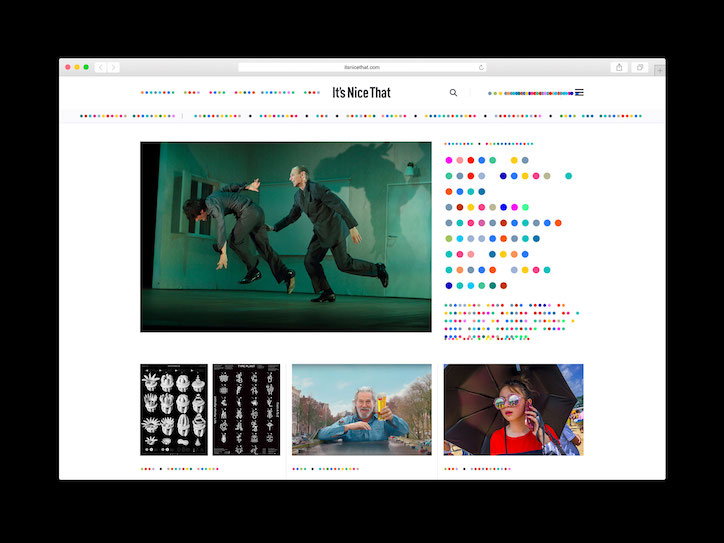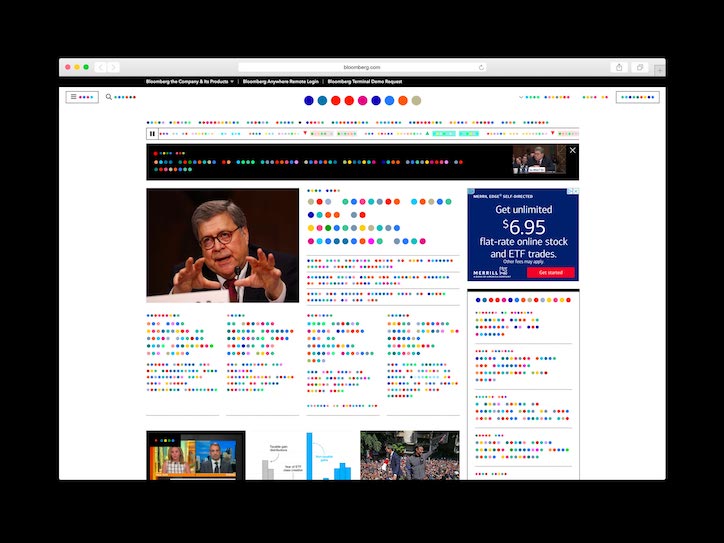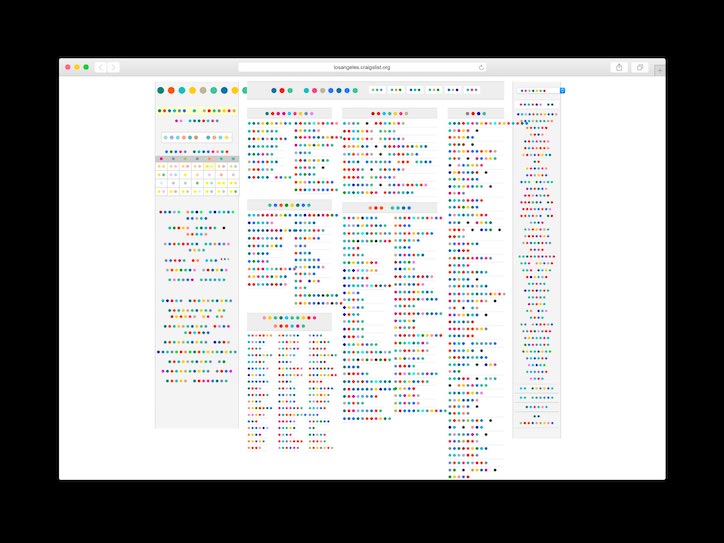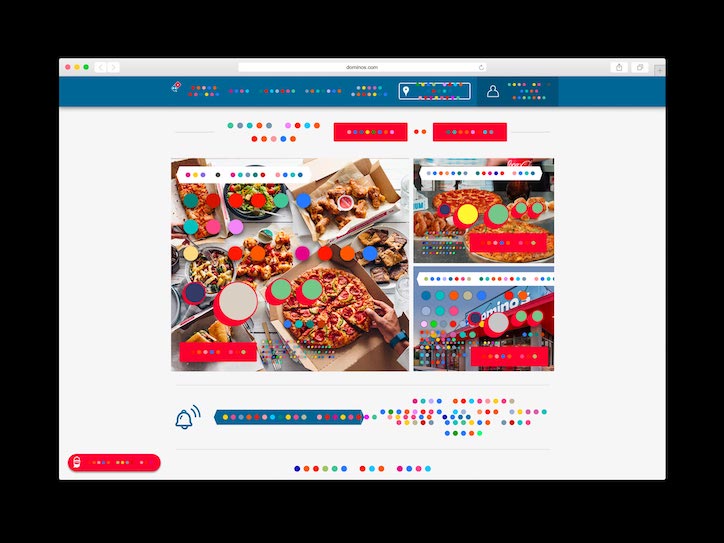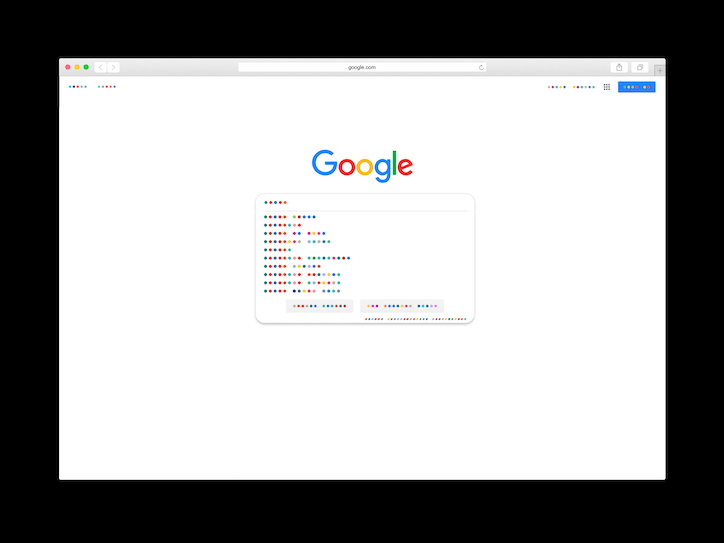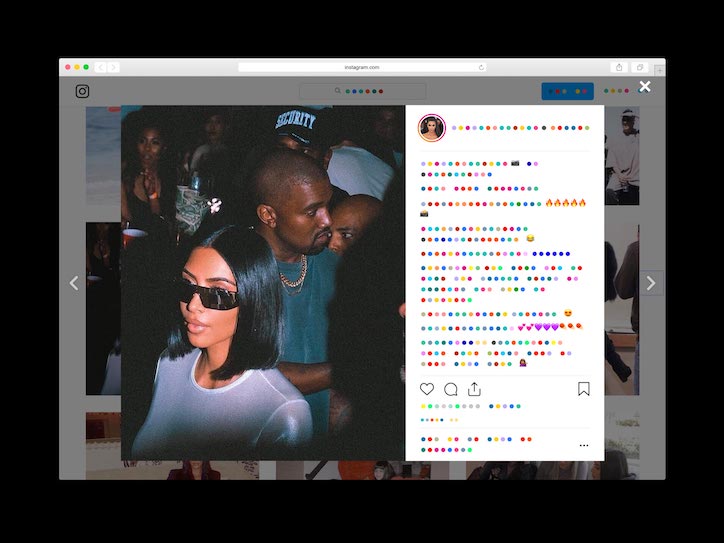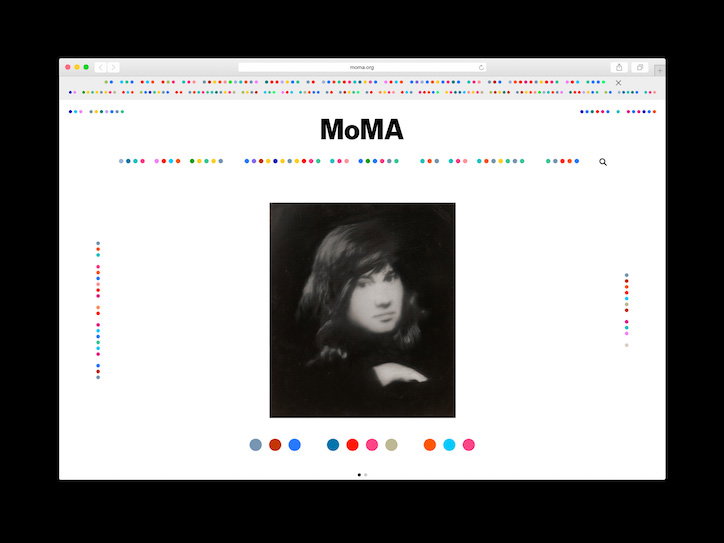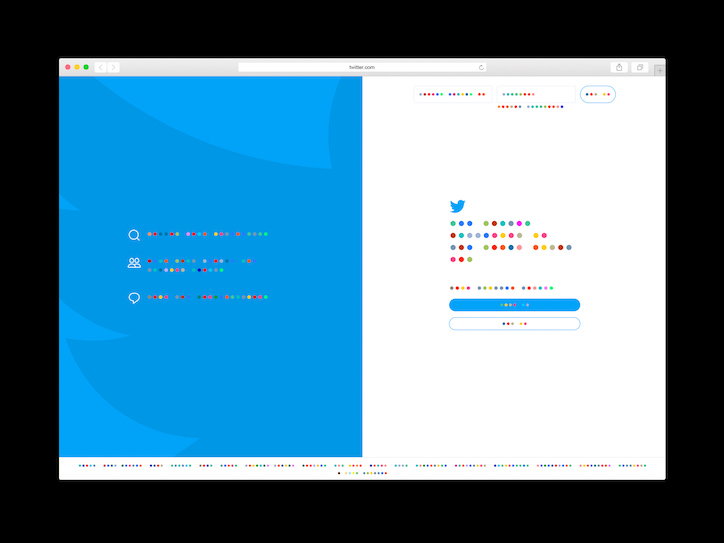
Say hello to Color Dot, a typeface that wants to make the internet friendlier
If you’ve ever wanted to browse a wordless internet, you’re not alone. Martin Grasser shares your woes. Martin Grasser, coincidentally, is a man who knows more than most about the sheer amount of text that clutters up the internet like so many stray hairs in a gigantic digital plug hole.
Martin Grasser is the man who gave us the Twitter logo, and Martin Grasser is a man on a mission to generate a version of the internet in which words cease to exist. Color Dot — a newly launched plug-in which is currently only available for the Firefox browser — is that internet.
The idea was simple: create a typeface which automatically converts alphanumerical characters into coloured dots. The execution is delightfully odd: rendered as nothing but colour, Grasser forces the reader to consider their relationship to language.
“It seems that by replacing letterforms with dots one becomes much more aware of the contexts that language operates within and the patterns it creates, and how much these things influence meaning and communication,” Martin tells It’s Nice That when asked to explain what the project is trying to say about how we use words in the online world.
He describes the project as an attempt at crafting a kind of “true universal language” pointing to the fact that while it might be “hard to imagine anyone ever being able to read in Color Dot,” we have managed to get our head around various “structural conventions that have become ubiquitous across many cultures,” including username and password fields, and CAPTCHA.
Martin uses an email client as a prime example of how the visual language of the internet is something we learn and supplement our mother tongue with. “An English speaking Gmail user can go onto the South Korean Gmail site and still make sense of the many prompts,” he explains.
Now, not to get too serious here, but the internet isn’t always the friendliest place. Misinformation runs riot, hatred swells, and you’ve got to put up with seeing meme after unfunny meme retweeted into your feed 24 hours a day. All of which can make one of mankind’s greatest inventions feel like little more than a system in which hostility and irritation constantly find themselves taking centre stage.
Mark would like, in his own way, to change that. “If this project gives people a break from digital information overload for a bit that would be great,” he says. “If it contributes to more awareness of how systems and patterns influence communication that would be good too.”
The OG version of Color Dot is available to use right this second. Martin says that “there are plans to release some versions with different colour palettes and shapes in the future,” which is good news for anyone looking for some digital respite from the internet’s unstoppable glut of pure, raw language.